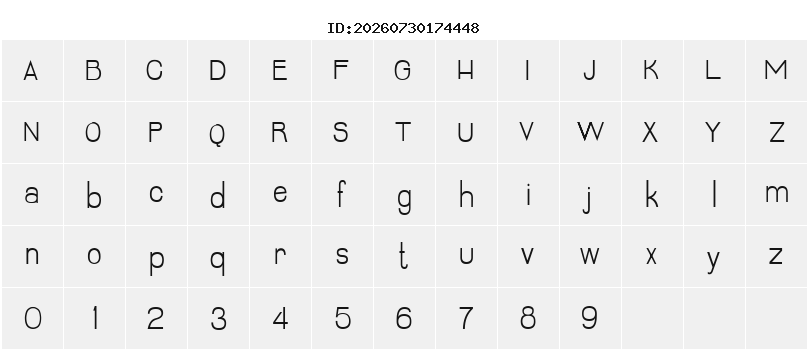
• Font Name: Lumiere
• Designer: Bess Asher Rebel
• Description: As a delicate sans serif font, Lumiere serves to bridge the gap between form and function.
About Lumiere.ttf
Lumiere.ttf is a modern, elegant sans-serif font designed for ultimate readability and visual harmony. Perfect for branding, headlines, web design, and print materials.